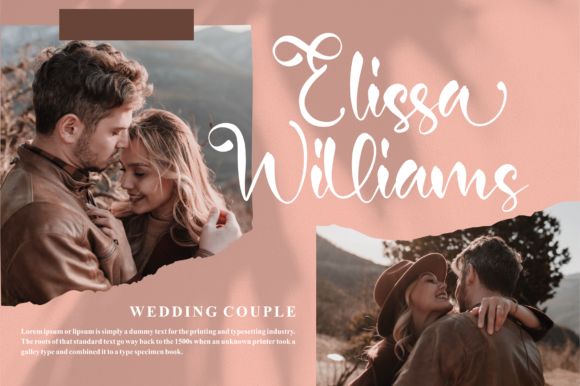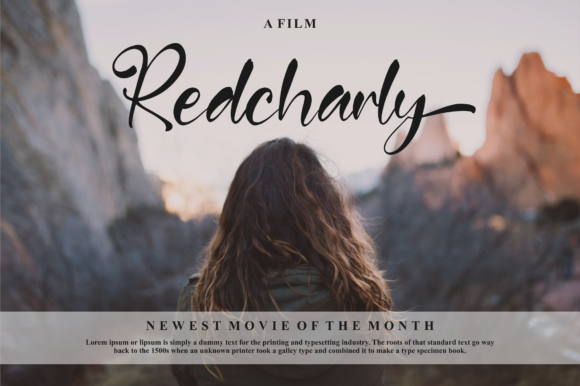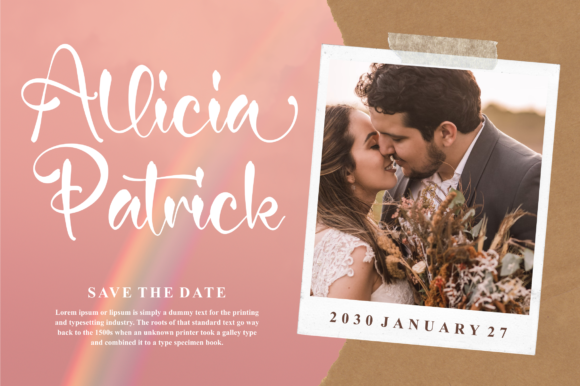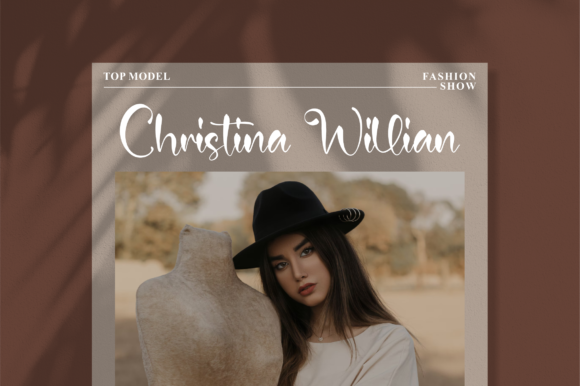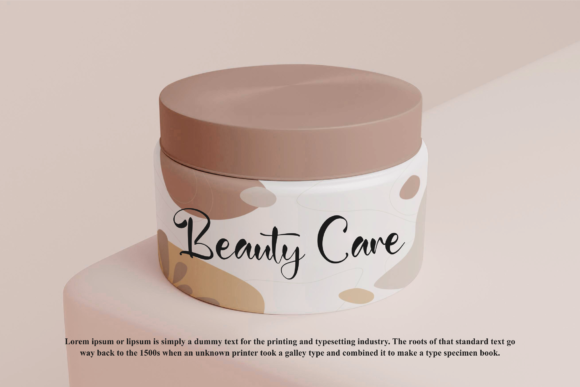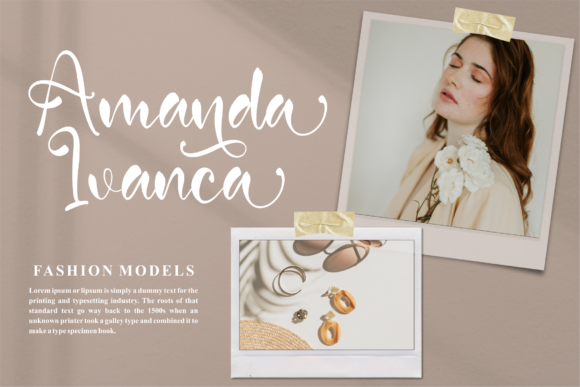
Discover the Elegance of Anghista Font: A Designer’s Best Friend
Have you ever been in the middle of a creative project, pouring your heart and soul into it, and suddenly, the right font pops into your mind? It’s like a ray of sunshine breaking through the clouds, illuminating your entire design process. This is exactly what happens when you discover the Anghista Font.
| 👤 Author | Letterfabric |
Anghista Font is a beautiful script font designed to elevate any project from ordinary to extraordinary. From logos and branding projects to homeware designs, product packaging, and even book covers, this versatile font is the perfect companion for designers. Its elegant and sophisticated style makes it an invaluable asset for creatives looking to add a touch of class to their work.
Whether you’re a seasoned designer or just starting out, the Anghista Font is a valuable addition to your toolkit. Its adaptability and timeless charm make it an excellent choice for a wide range of projects, ensuring that your designs stand out in a crowded market.
Anghista Font Key Features
- Unique Characteristics: This font features a unique blend of modern and vintage elements, with intricate details and ornaments that add a touch of elegance to any design.
Anghista Font Review
Overall, I was impressed with the Anghista Font. It has a unique and elegant design that can be used for a variety of purposes, from headings to body text.
- Distinctive and stylish design: The Anghista Font has a distinctive feel to it, making it stand out from other fonts.
- Legibility: The font is clear and easy to read, even at smaller font sizes.
- Font pairing options: The Anghista Font can be paired with a variety of other fonts to create a unique and visually appealing design.
- May not be suitable for all types of text: The Anghista Font is a bit too ornate for use with large blocks of text, such as in novels or articles.
- Limited language support: The font may not support all languages, which could be a limitation for global branding or international applications.
- May not be accessible for some users: The Anghista Font’s unique design may make it difficult for some users to read, particularly those with visual impairments.
Overall, the Anghista Font is a solid choice for designers looking for a unique and stylish font. While it has some limitations, it can be a great addition to a design project, especially when used in moderation.
Anghista Font Practical Application Guide
Tips for Getting the Most Out of Anghista
Experiment with different font sizes and styles to create visual hierarchy and emphasis.
Use Anghista in conjunction with other design elements to create a cohesive visual identity.
Pay attention to font pairing and choose complementary fonts to enhance the overall design.
Anghista is a versatile font suitable for a variety of applications, including:
– Marketing materials
– Digital signage
– Print materials
– Web design